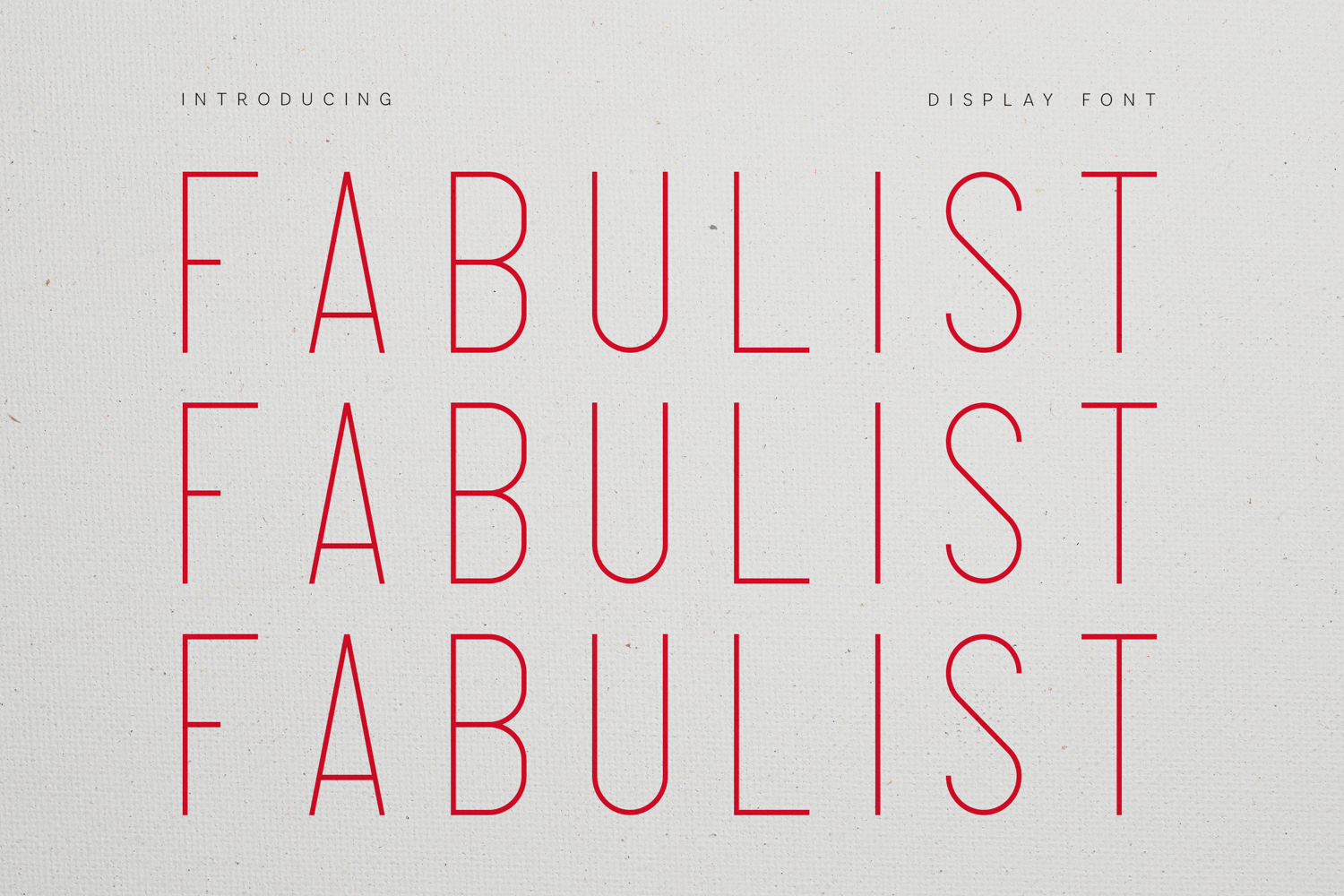
Fabulist Modern Minimal Display Sans Serif Font
Fabulist is a refined modern display sans serif designed for clean typography, contemporary branding, and elegant editorial design. The typeface features ultra-light strokes, tall proportions, and carefully balanced spacing that create a sophisticated and airy visual rhythm.
Its minimalist structure makes Fabulist ideal for modern branding systems, fashion editorials, luxury packaging, logo design, magazine layouts, and creative visual identities. The elegant thin strokes allow the font to stand out beautifully in large headlines while still maintaining clarity and style.
Fabulist combines geometric simplicity with subtle character details, giving designers a versatile display typeface that works perfectly for both minimalist and high-end creative projects.
The font includes uppercase and lowercase characters, numerals, punctuation, and extensive multilingual support, making it suitable for international design work across multiple languages.
Whether used for branding, posters, editorial layouts, or digital design, Fabulist delivers a sleek, modern, and elegant typographic voice.